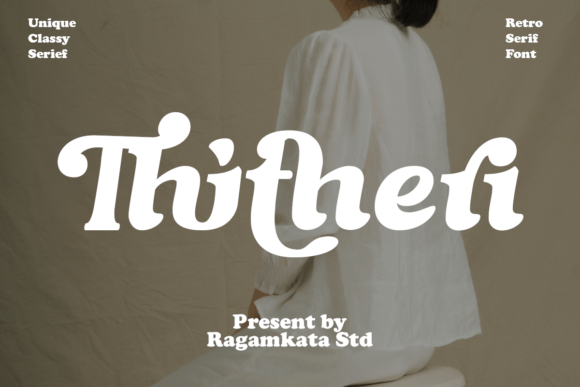
Prepare your Instagram Reels to embark on a journey through time with Thitheri, the captivating serif font inspired by the groovy aesthetics of the 1970s. Let Thitheri's enchanting curves and playful spirit transport your content to an era of bell bottoms, disco beats, and psychedelic art.
Picture your Reels oozing with retro charm as Thitheri's distinct letterforms dance across the screen. Each character carries the essence of a bygone era, evoking nostalgia and a sense of timeless elegance. Your audience will be mesmerized by the font's ability to transform ordinary Reels into captivating visual masterpieces.
But Thitheri is more than just a retro throwback; it's a versatile font that seamlessly blends the past with the present. Its carefully crafted curves and sharp serifs strike a perfect balance between classic and contemporary, making it suitable for a wide range of creative projects beyond Instagram Reels.
Unleash your creativity and let Thitheri elevate your branding, social media posts, invitations, posters, and more. Its unique set of 26 special alternates empowers you with endless possibilities to customize your designs and add a touch of individuality to every project.
Join the creative revolution and embrace the allure of the '70s with Thitheri. Let its timeless beauty and versatility transform your digital creations into captivating works of art that resonate with your audience. Download Thitheri today and unlock a world of groovy typography that will leave a lasting impression.